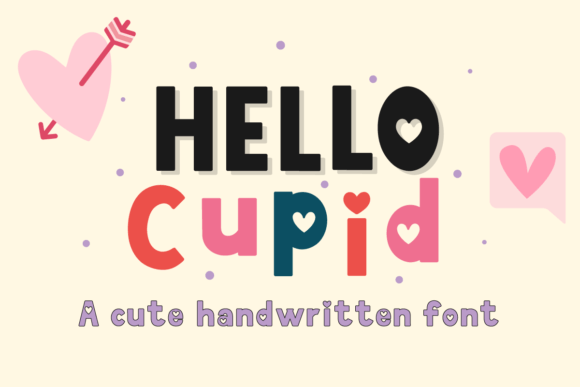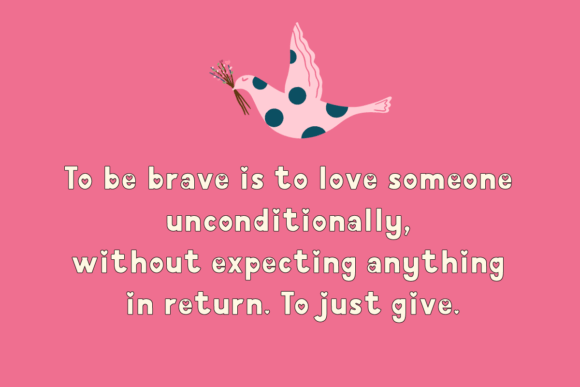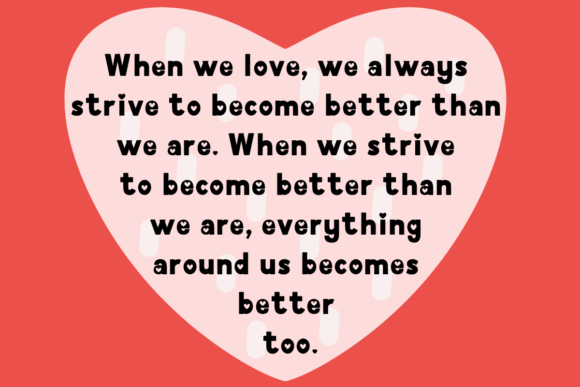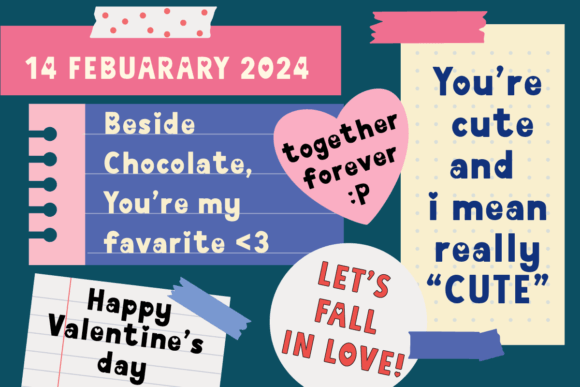
Hello Cupid Font
About the Hello Cupid Font
Explore the possibilities with Hello Cupid Font, a font that offers both beauty and functionality. HELLO CUPID is a hand written font with heart decoration. Perfect for Valentine projects, shirts, Valentineg designs, invitation cards, mugs, stickers, playful quotes, creating posters, logos, greeting cards, packaging, decorating the illustration and so much more!
Hello Cupid’s playful, hand-drawn style is ideal for projects requiring a lighthearted and romantic touch. It excels in headlines, short text blocks on packaging, and social media graphics. Use it for branding projects targeting a young, feminine demographic or for products emphasizing fun and affection. Avoid using it for large bodies of text or UI elements where readability is paramount; its decorative elements might hinder legibility.
Pairing Hello Cupid with a clean sans-serif like Open Sans for body copy creates a balanced contrast, allowing the handwritten charm to shine while maintaining readability. For a more sophisticated feel, consider pairing it with a classic serif font such as Garamond, softening its playful energy with a touch of elegance. A geometric sans-serif could also add a modern edge.